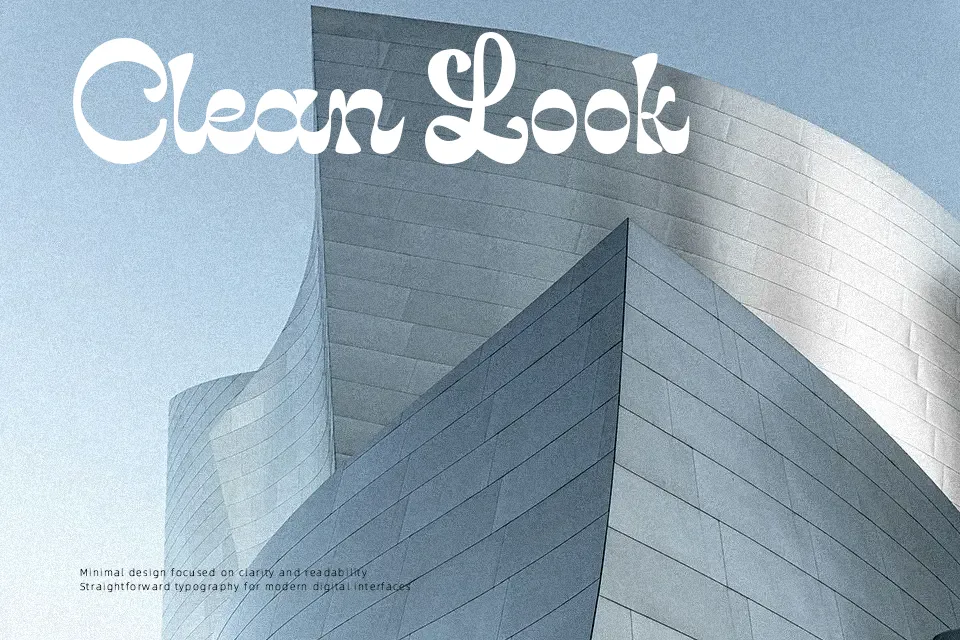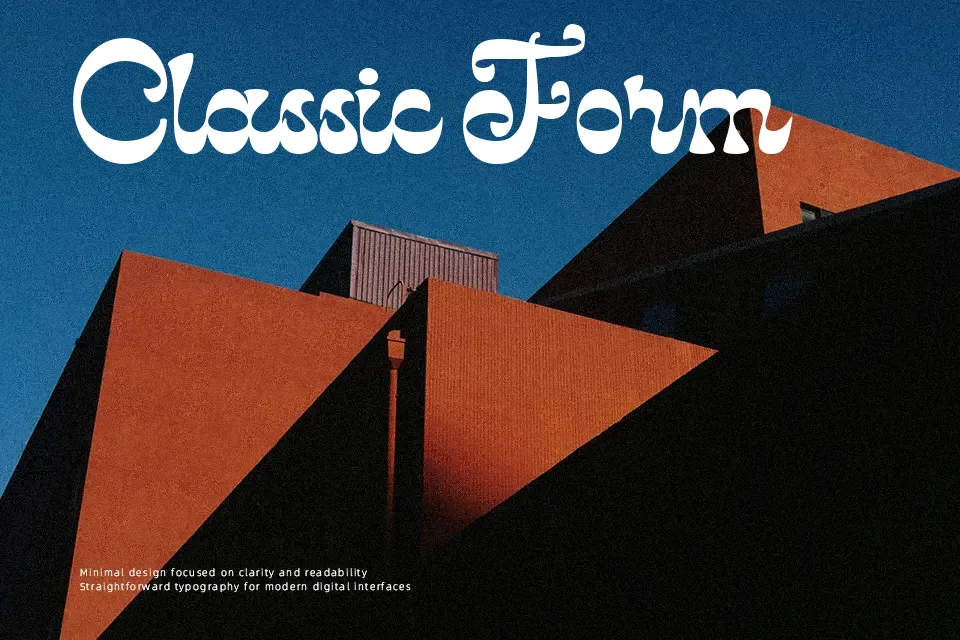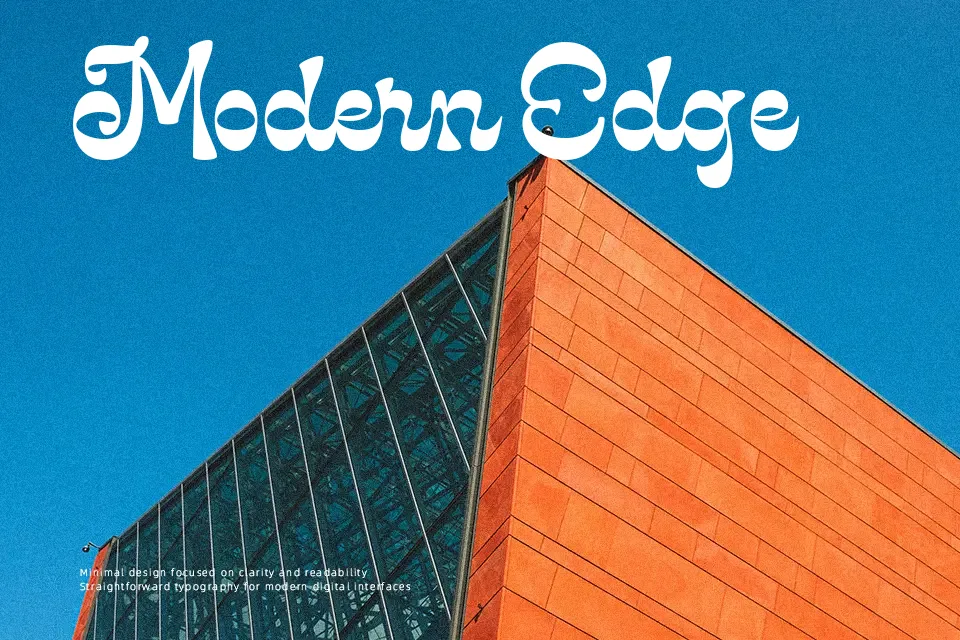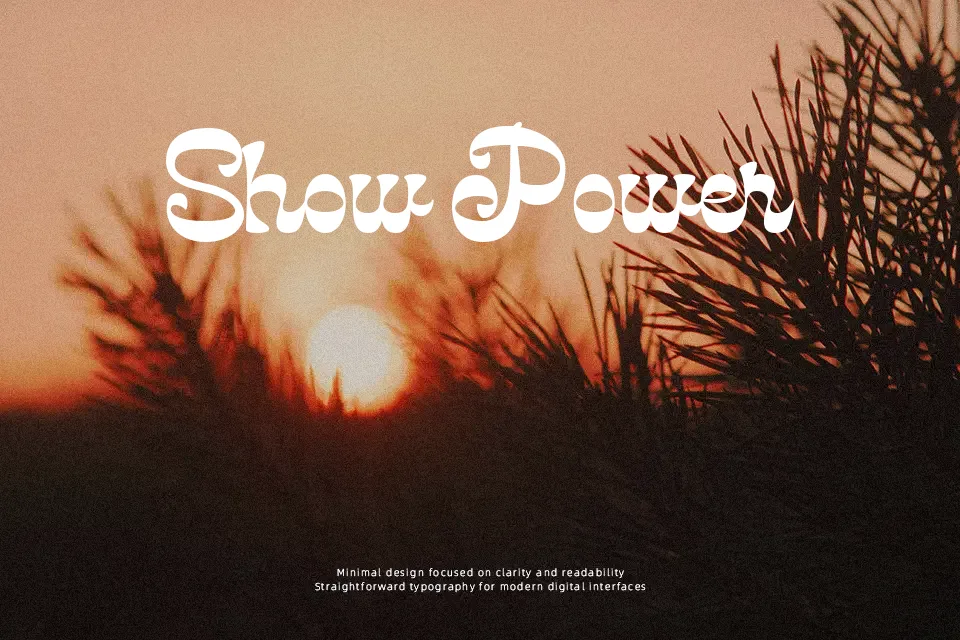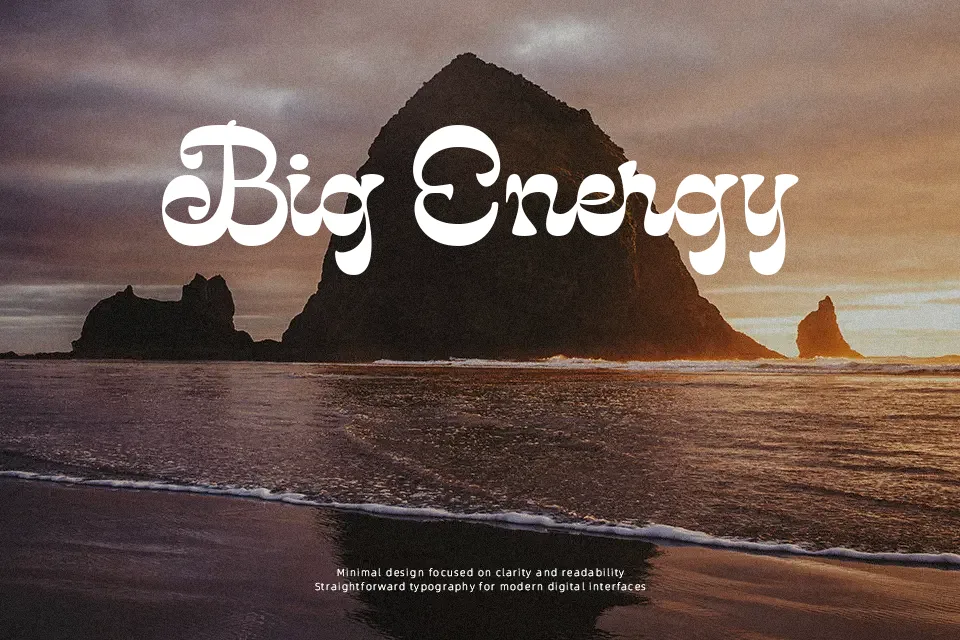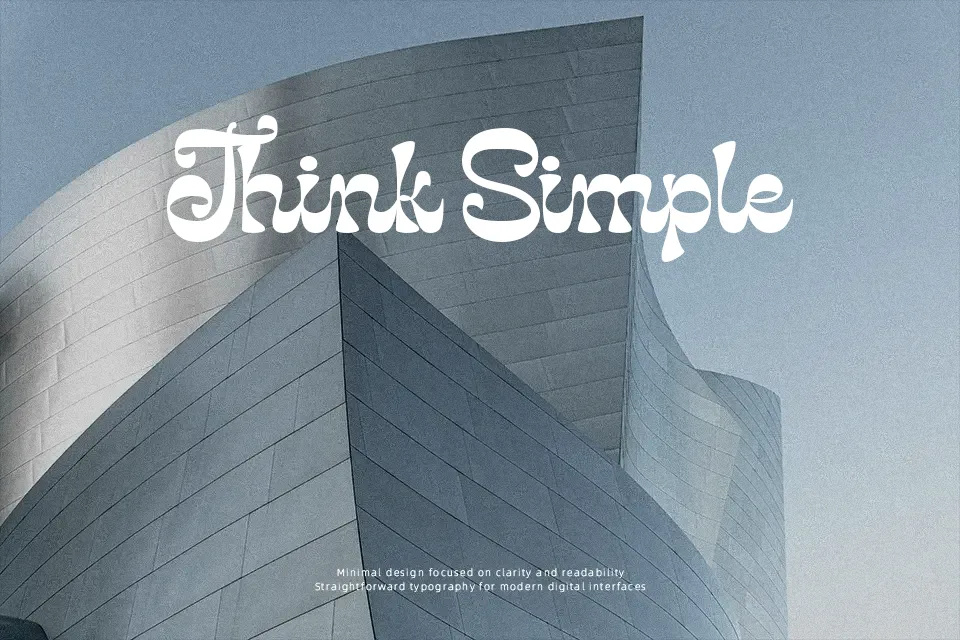
Reverse Vintage Font
A short product label or poster headline benefits greatly from the fluid elegance of the Reverse Vintage Font. This stylish script design features connected cursive strokes with smooth contrast, giving the letterforms a natural yet highly refined rhythm. The well-balanced proportions and sweeping curves offer a distinctly retro aesthetic that instantly elevates visual impact across large canvases. While these generous curves ensure strong visibility in large display formats, the intricate decorative details become considerably less effective at smaller text sizes. Dense looping forms reduce continuous reading comfort, meaning this typeface performs optimally in short, punchy applications rather than extended paragraphs.
Best For: vintage product packaging, custom logo wordmarks, retro poster headlines
Not Ideal For: long paragraph text, dense editorial layouts, small interface labels
Perfect for branding, headline, and logo, with a classic and decorative style.